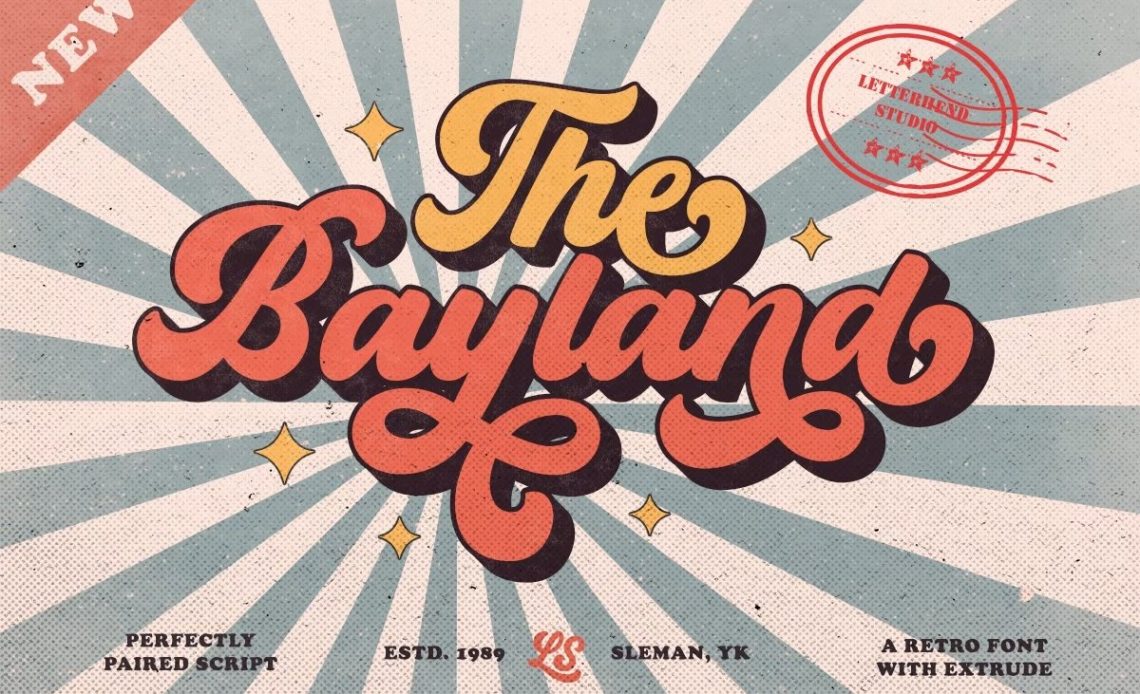
Introducing The Bayland - Retro Font, the best font for vintage t-shirts. Designed by Hendry Juanda, this retro bold script is sure to transport you back to the 60s with its nostalgic feel. The Bayland is perfect for creating your own retro effect font with its extrude version, making it a must-have for any design enthusiast.
This font family is not just for t-shirts; it is versatile and can be applied in various formal forms such as logos, invitations, labels, magazines, books, greeting/wedding cards, packaging, fashion, makeup, stationery, novels, labels or any type of advertising purpose.
The Bayland includes uppercase and lowercase letters, numbers, and punctuation, as well as multilingual support, ligatures, alternates, swashes, and is PUA encoded. To access all Glyph variations, we recommend using a program that supports OpenType features and Glyphs panels such as Adobe apps and Corel Draw. For a tutorial on how to access OpenType features, check out this link: letterhend.com/tutorials/using-opentype-feature-in-any-software/.
Don't settle for mediocrity in your designs. Let The Bayland - Retro Font elevate your design to the next level with its unique and captivating vintage feel. Start creating today and let your imagination run wild.